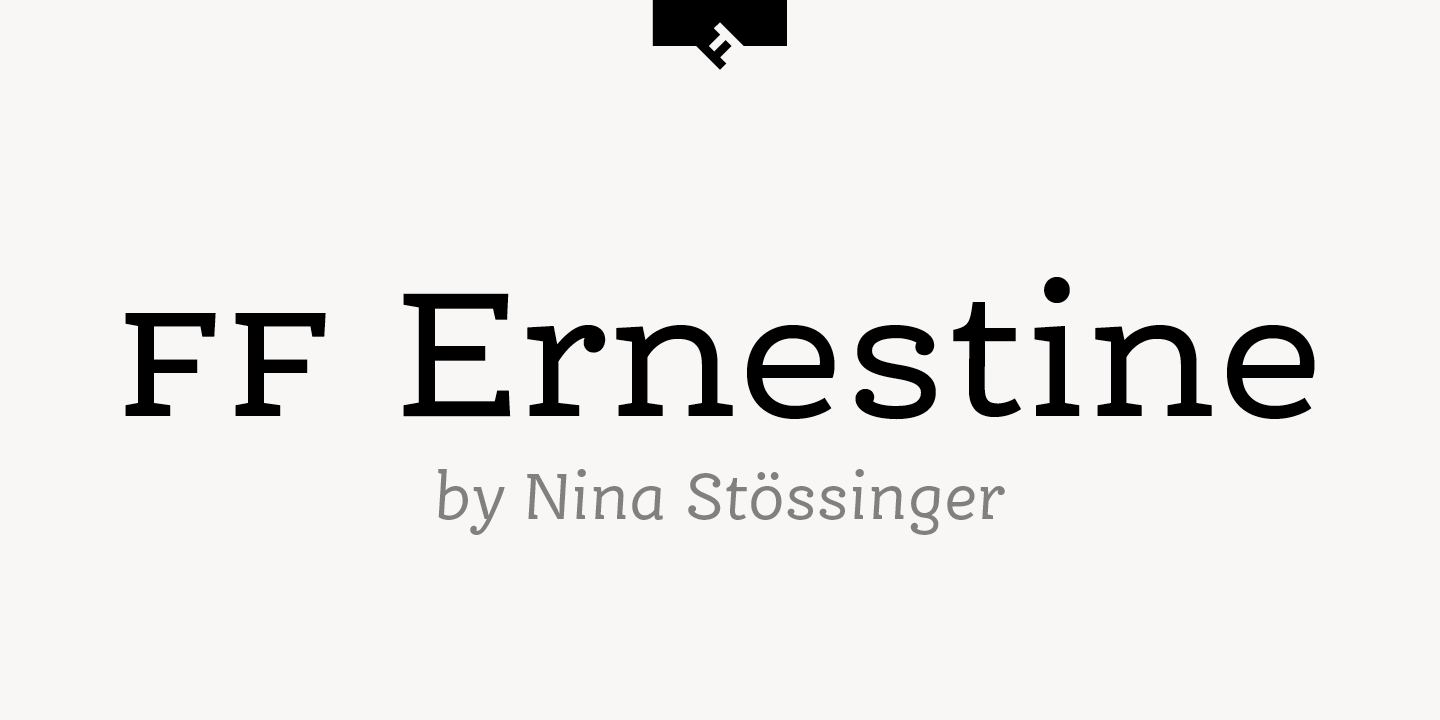
FF Ernestine Font is ideal for literary publications, sophisticated book design, elegant magazine layouts, academic journals, cultural institution materials, refined editorial projects, scholarly documentation, premium publishing ventures, intellectual discourse presentations, and distinguished writing applications. This refined typeface creates authentic literary atmosphere in both traditional print and contemporary digital publishing platforms.
What makes FF Ernestine Font exciting is its exquisite interpretation of classical typography principles with contemporary intellectual sophistication and literary elegance. The font features carefully balanced letterforms with humanist proportions and scholarly character details that evoke distinguished libraries, intellectual discourse, and literary excellence. Its refined design establishes an atmosphere of cultural sophistication and intellectual authority that resonates with literary communities and educated audiences seeking authentic typographic quality.
FF Ernestine Font family includes literary variations: Light, Regular, Medium, Bold, and Italic versions, each with scholarly alternates and intellectual character sets. Each variant maintains the font's literary integrity while providing designers with sophisticated options for creating elegant typography hierarchies and scholarly communication systems.
This exceptional literary typeface brings authentic intellectual credibility to projects requiring scholarly presentation. Whether you're designing academic publications, literary magazines, or cultural marketing materials, FF Ernestine Font Free Download delivers outstanding elegance and intellectual sophistication. The font's humanist proportions and literary details ensure memorable scholarly connection across various publishing applications.
Publishers and cultural institutions recognize how FF Ernestine Font perfectly embodies the principles of literary excellence and intellectual typography. Its scholarly foundation combined with contemporary refinement makes it essential for publishing and academic design projects. Download today and literarily elevate your designs with this exceptionally sophisticated intellectual typography.